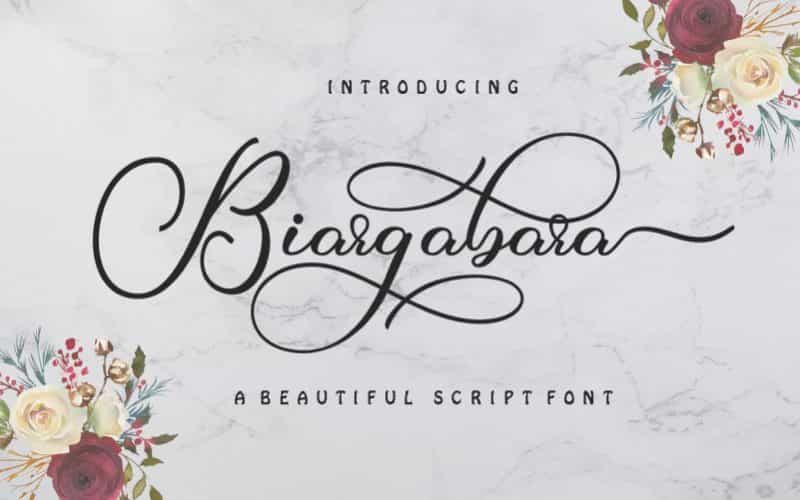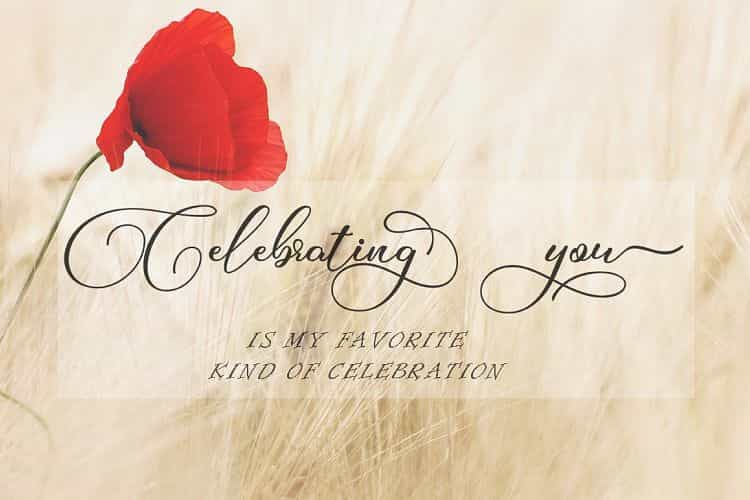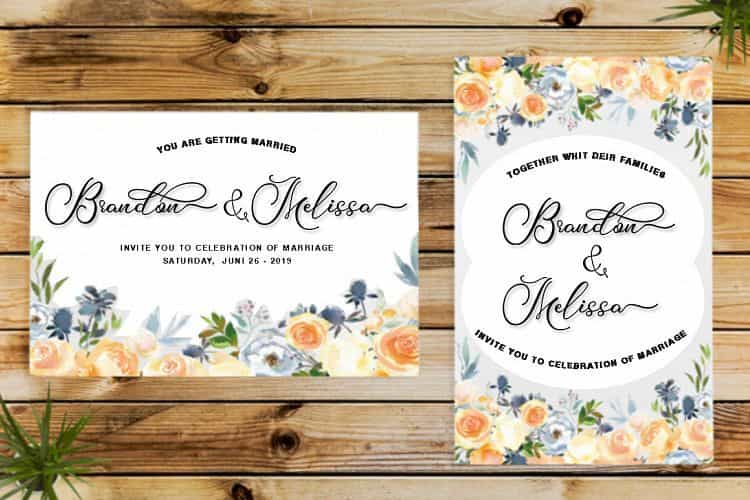
Introducing the Biargabara Script font.. Hi Designer, Come again to complete your script font collection …!! Font Biargabara Script. This is a classic thin font with italics.. you will get a beautiful classic font, this font presents a dashing type of script modern round which can make your text western look elegantly formal, trendy, and classical, It is your ideal choice for writing with modern western culture.. this font perfect for many ideas and project …!!